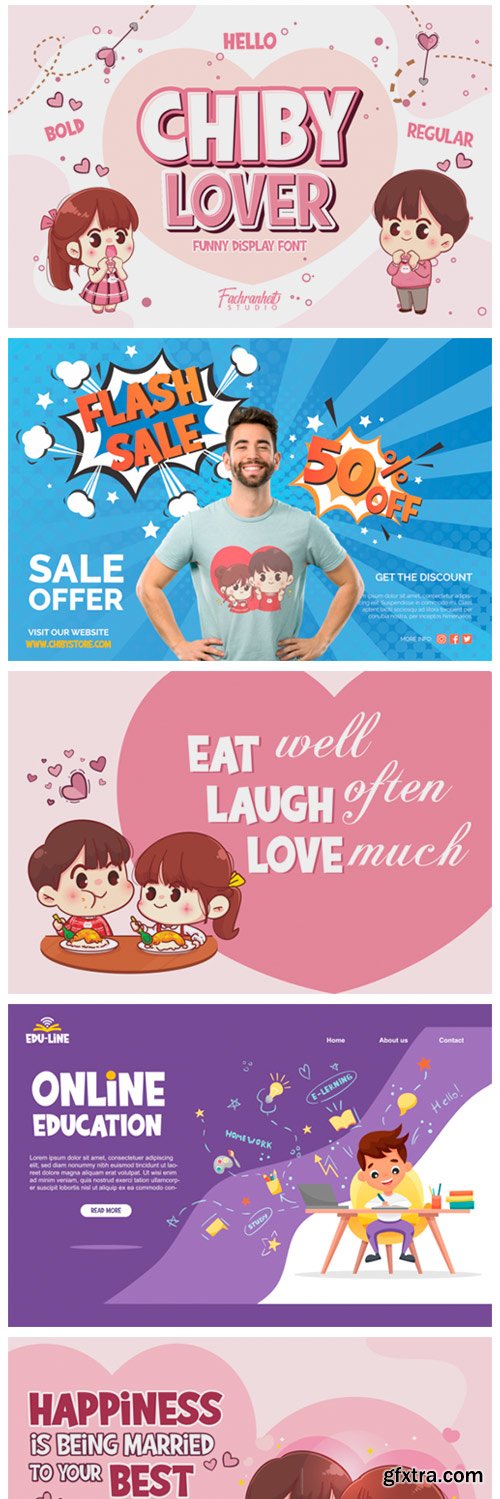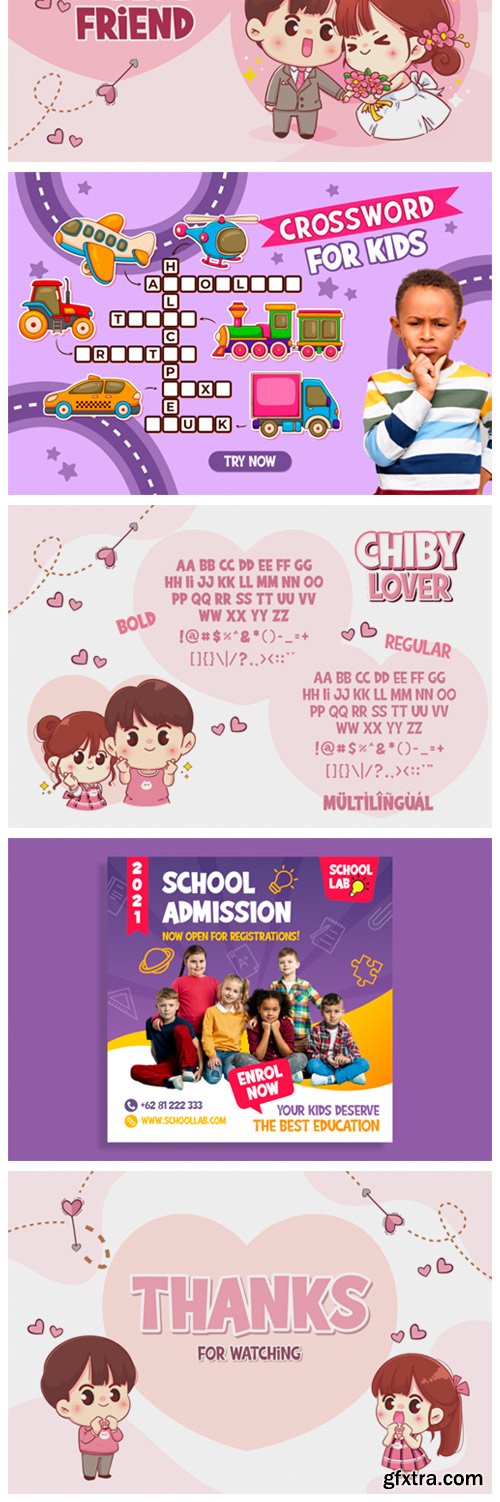
Chiby Lover Font
Chiby Lover is a bold and colorful display font. Its friendly feel makes this font incredibly versatile, fitting a wide range of contexts. Add it to your creative ideas and notice how it makes them stand out!